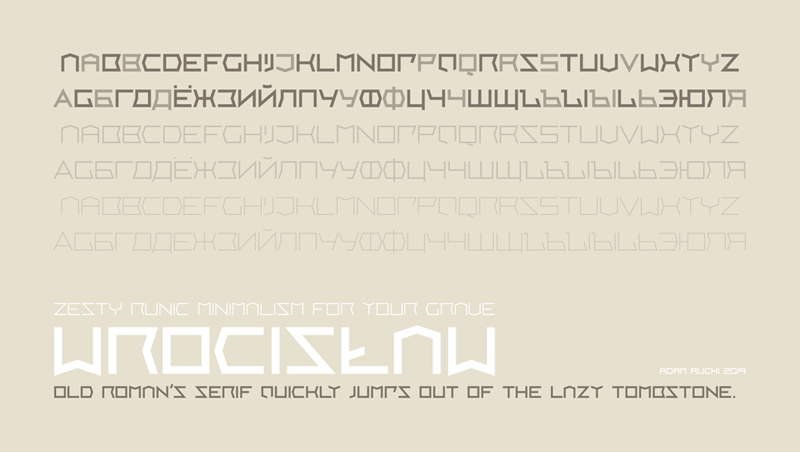
Font name: | Wrocislaw |
Author: | Adam Rucki |
Note by Adam Rucki | |
Promoting a font for the tombstones seems to be a bit problematic. How will you advertise it? Will the target group recommend it to their family members and friends? Will the enthusiasts of modern design remember about it when they will need it? After how many years will it happen? Anyway, if you fancy a touch of runic inspiration, military decisiveness and a fresh minimalist finish, Wrocisław might be the font for you. |